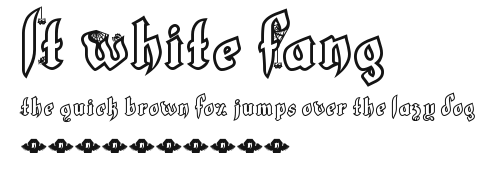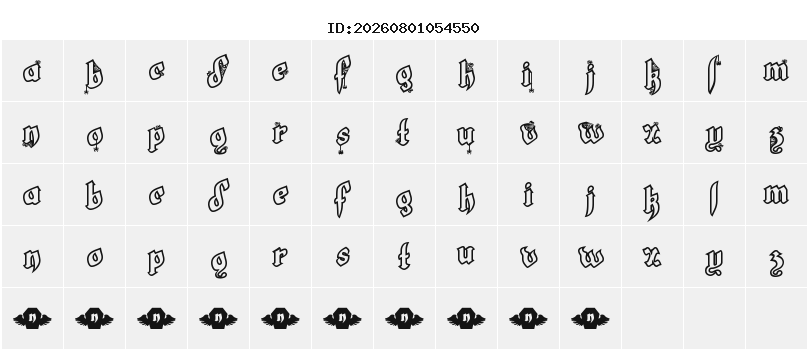
• Font Name: LT White Fang
• Designer: Lauren Thompson
• Description: Just one of many variations to a blackletter inspired (Fraktur being the primary inspiration as it has been for many a typographer) font face design by Lauren Thompson. This one features a bold outline look, with the uppercase letters accented with spiders and spider-webs. This font was given the name "LT White Fang," for it's open "white" centers, and "fang" of course is a reference to the spiders; however, all of the other fonts of this blackletter style belong to Lauren Thompson's (Nymphont's) "LT Libitina" family and series.